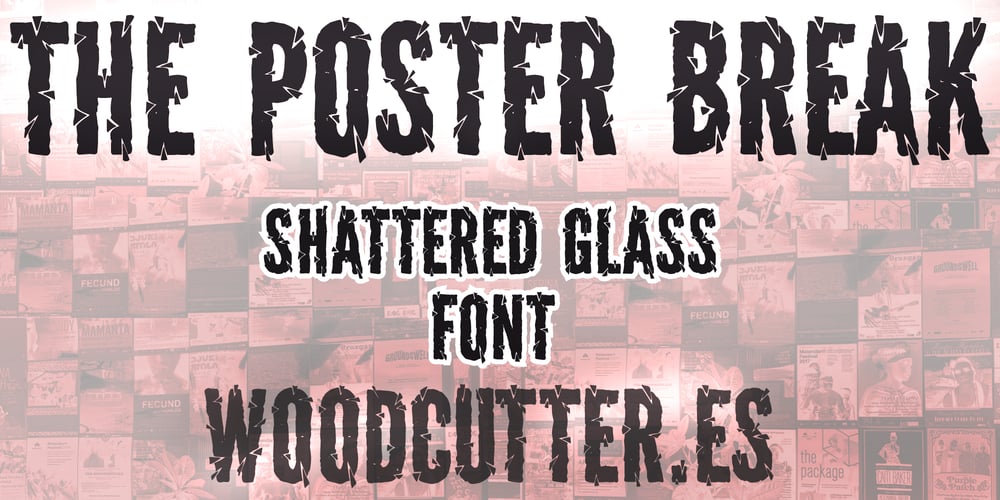
The Poster Break Font Family was designed by Jordi Manero and published by Woodcutter. The Poster Break contains 1 styles and family package options. “Poster Break” is an uppercase font with a stylized design that mimics letters made of shattered glass. Each letter appears to be broken into a thousand pieces, featuring fractured lines and sharp edges that create a dramatic and visually striking effect. The fragmented and chaotic appearance gives a sense of dynamism and movement, as if the letters are caught in the midst of an explosion. Ideal for designs that need to convey intensity, tension, or a sense of breaking apart, this font is perfect for posters, album covers, and any project seeking a bold impact.